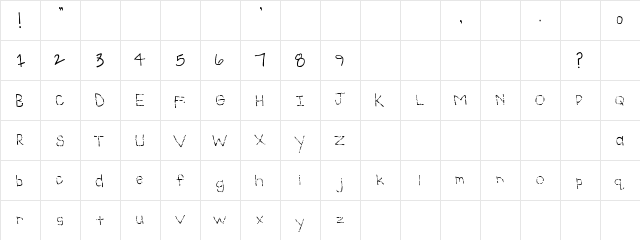
Design Context for SBC Morse Code Typeface
SBC Morse Code brings the precise, column-aligned rhythm of monospaced typography to designs that value technical clarity and systematic order.
A natural fit for code editors, technical documentation, developer-focused branding, and terminal-inspired UI.
Pro Tip: Pair SBC Morse Code with a proportional sans for UI contexts where code-style labels and regular body copy need to coexist.